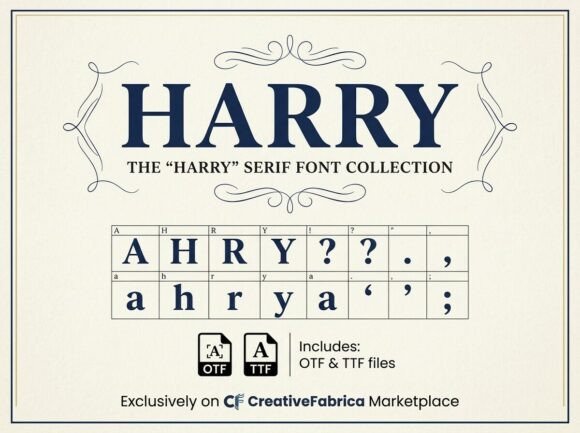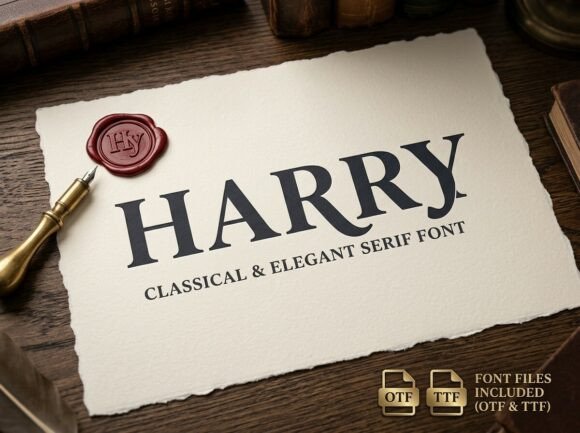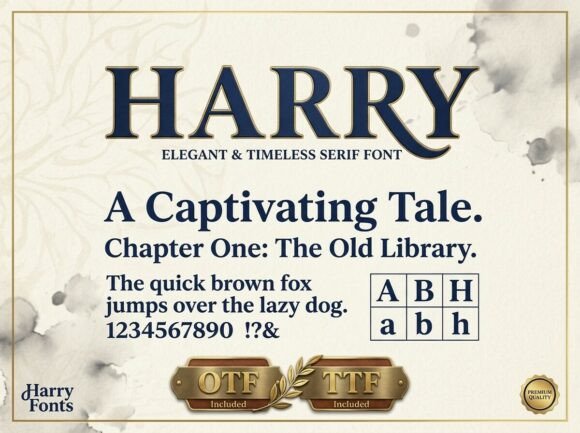
Introducing Harry Font: The Ultimate Decorative Display Font for Creative Designs
Are you tired of using the same old fonts for your designs? Look no further than Harry Font, a stunning decorative display font that’s sure to turn heads. With its unique artistic elements and strong visual personality, this font is perfect for creators who want to break away from the ordinary and make a statement.
What Makes Harry Font So Special?
Harry Font is a game-changer for designers who want to add an instant “wow” factor to their projects. Its intricate details and creative letterforms make it ideal for high-impact designs where the typography needs to do the talking. Whether you’re designing a modern poster, a unique brand identity, or eye-catching social media content, this font is sure to grab attention and leave a lasting impression.
One of the best things about Harry Font is its versatility. This font is perfect for a wide range of design applications, from bold headlines and artistic logos to creative packaging and apparel designs. Its professional and polished finish ensures that your designs will always look high-end, no matter where you use it.
Perfect for Poster Design
Want to create headlines that people can’t look away from? Harry Font is the perfect choice for poster design. Its bold and eye-catching letterforms will grab attention and draw viewers in, making it ideal for advertising, promotional materials, and more.
Elevate Your Branding and Logos
Build a unique identity for your creative business with Harry Font. This font is perfect for branding and logos, allowing you to create a distinctive and memorable visual identity that sets you apart from the competition.
Apparel and Merch Design
Take your apparel and merch designs to the next level with Harry Font. This font is perfect for T-shirts, hoodies, tote bag designs, and more, adding a touch of personality and style to your products.
Make Your Social Media Content Stand Out
Want to make your quotes and announcements stand out in the feed? Harry Font is the perfect choice for social media content. Its bold and eye-catching letterforms will grab attention and help you build a strong online presence.
Perfect for Packaging Design
Give your products a premium feel with Harry Font. This font is perfect for packaging design, adding a touch of luxury and sophistication to your products and helping you stand out on store shelves.
Key Features of Harry Font
- Unique artistic elements and strong visual personality
- Intricate details and creative letterforms
- Perfect for high-impact designs where typography needs to do the talking
- Versatile enough for bold headlines, artistic logos, and creative packaging
- Professional and polished finish
If you’re looking for a font that will take your designs to the next level, look no further than Harry Font. With its unique artistic elements, strong visual personality, and versatility, this font is perfect for creators who want to break away from the ordinary and make a statement. Whether you’re designing posters, branding and logos, apparel and merch, social media content, or packaging, Harry Font is the perfect choice.